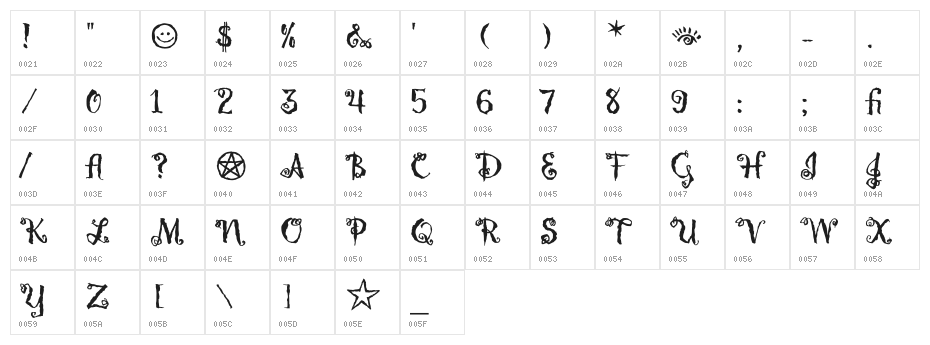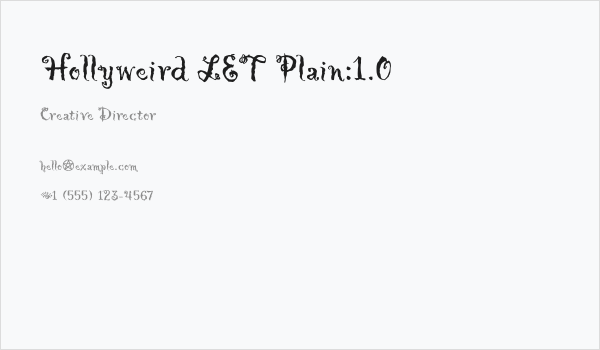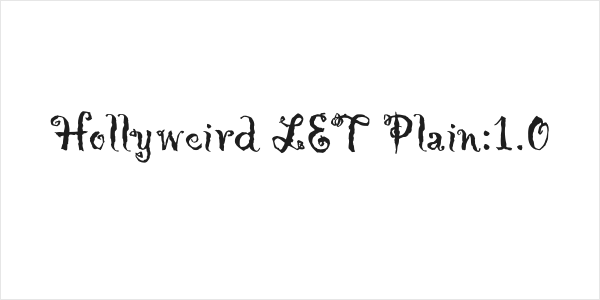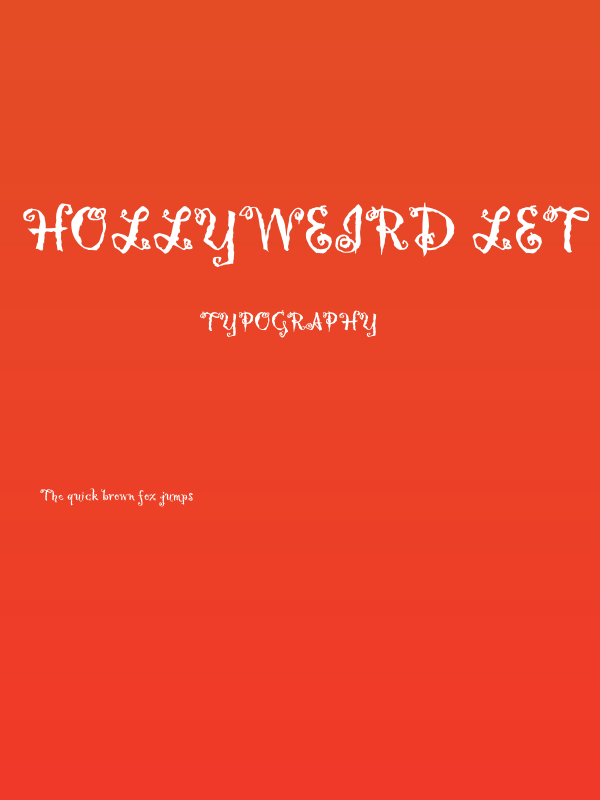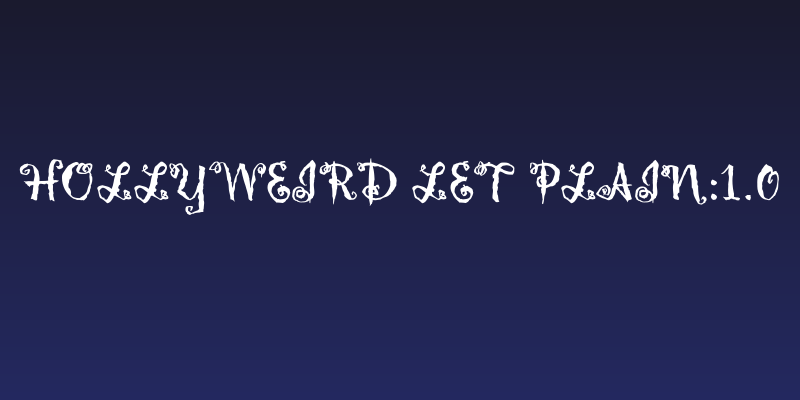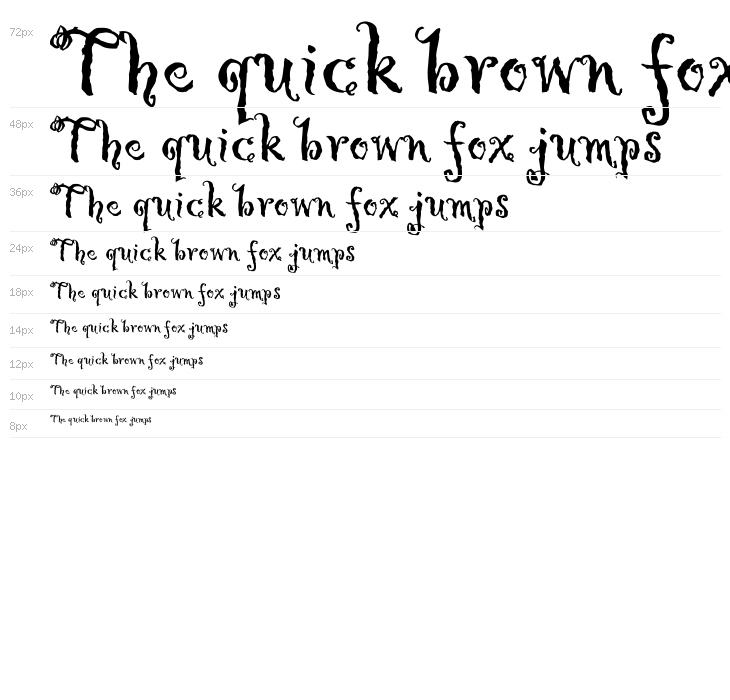
Hollyweird LET Plain:1.0 Font
Hollyweird LET Plain:1.0 Description
This font features an eccentric and whimsical design, characterized by its playful and decorative elements. Each letter is adorned with unique curls and swirls, giving it a quirky and artistic appearance. The font's style is reminiscent of a hand-drawn aesthetic, with irregular strokes and a slightly uneven baseline that adds to its charm. It captures a sense of fun and creativity, making it suitable for projects that require a touch of individuality and flair. The characters are bold and prominent, ensuring readability while maintaining their distinctive style.